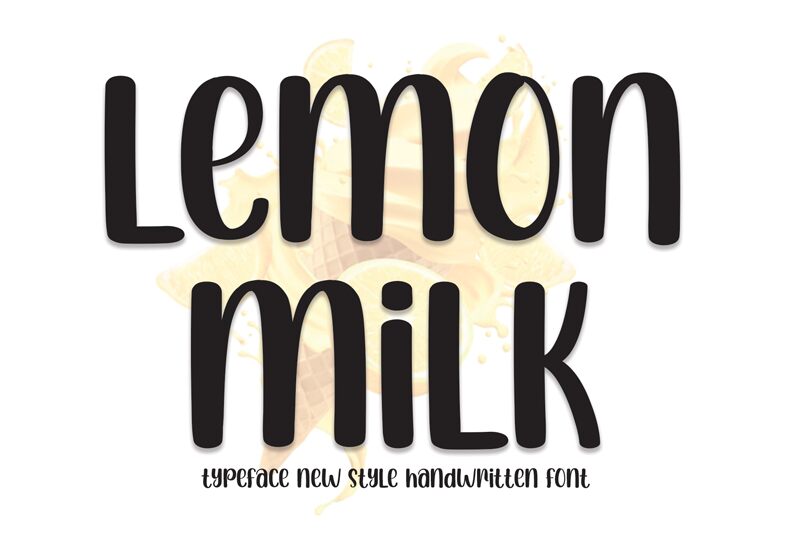
Lemon Milk
Lemon Milk, crafted by Scratchones, stands out as a playful and robust display font that immediately catches the eye with its cartoon style. Its bold weight conveys confidence, while the semi-condensed width ensures that it makes a solid statement without overwhelming the canvas. The rounded edges of Lemon Milk add a touch of softness to its presence, making it approachable and versatile for various design needs.
This font's aesthetic is perfect for projects that aim to be modern yet friendly, suitable for everything from lively brand logos to dynamic advertising campaigns. The unique blend of cartoonish charm and assertive styling makes Lemon Milk an excellent choice for designers looking to inject personality and energy into their creative work. With its distinct appearance, Lemon Milk promises to give your designs a fresh and memorable visual impact.